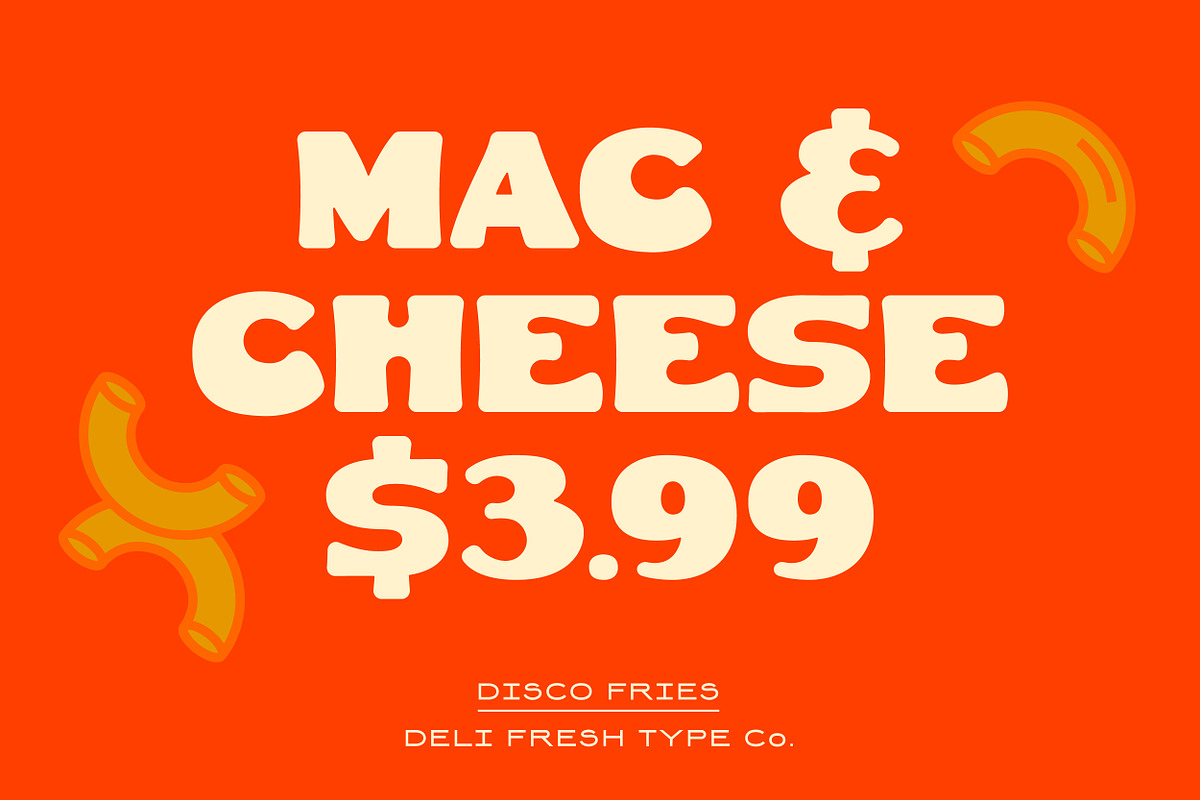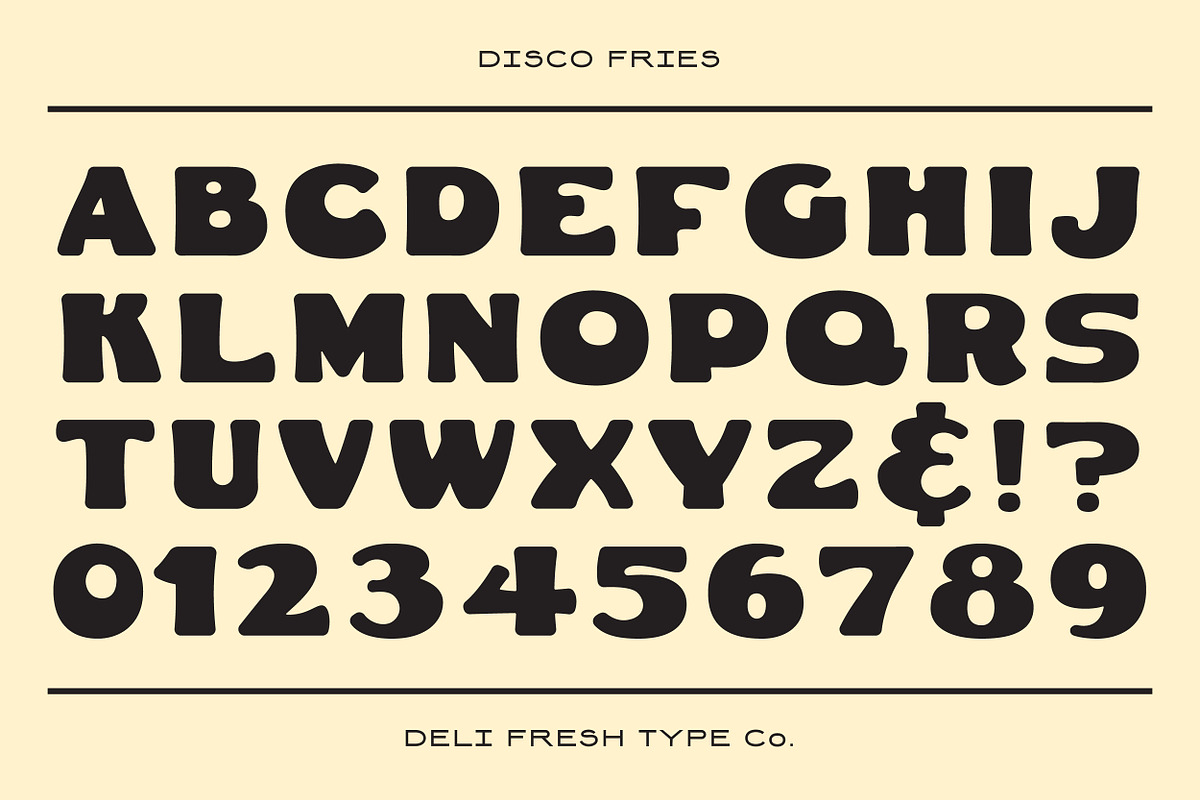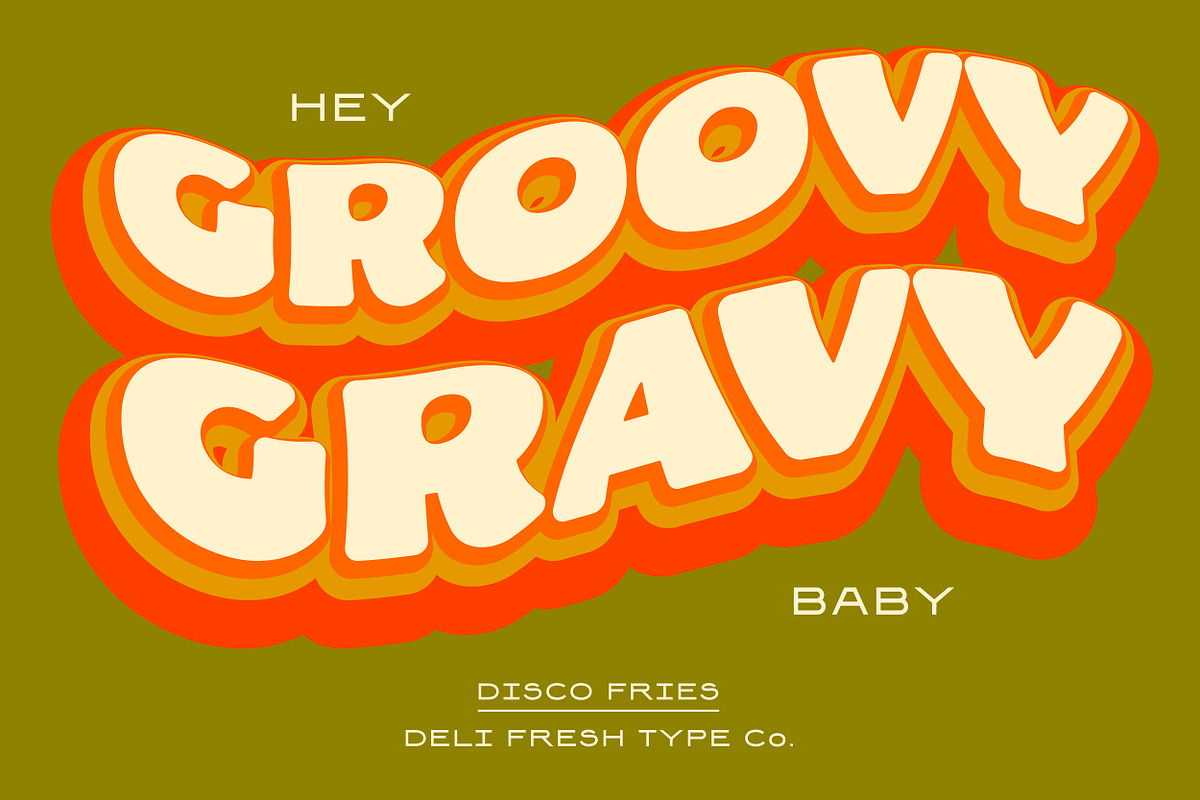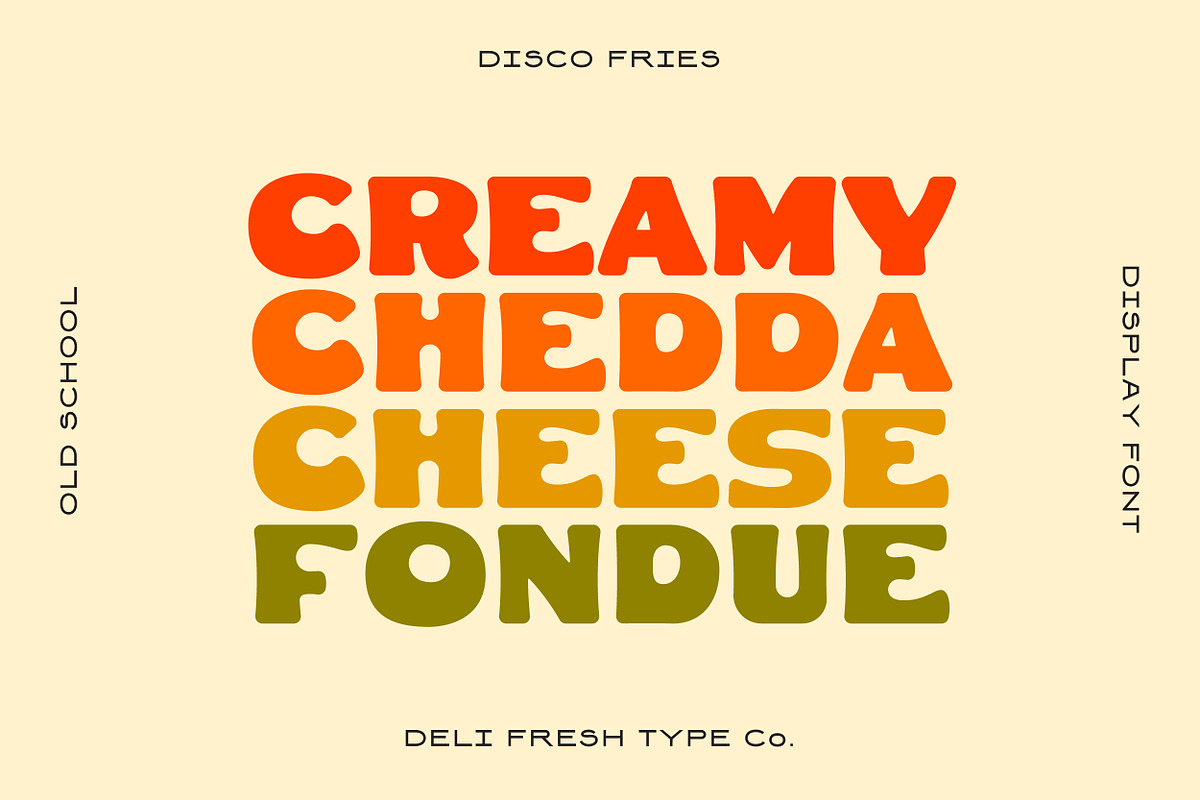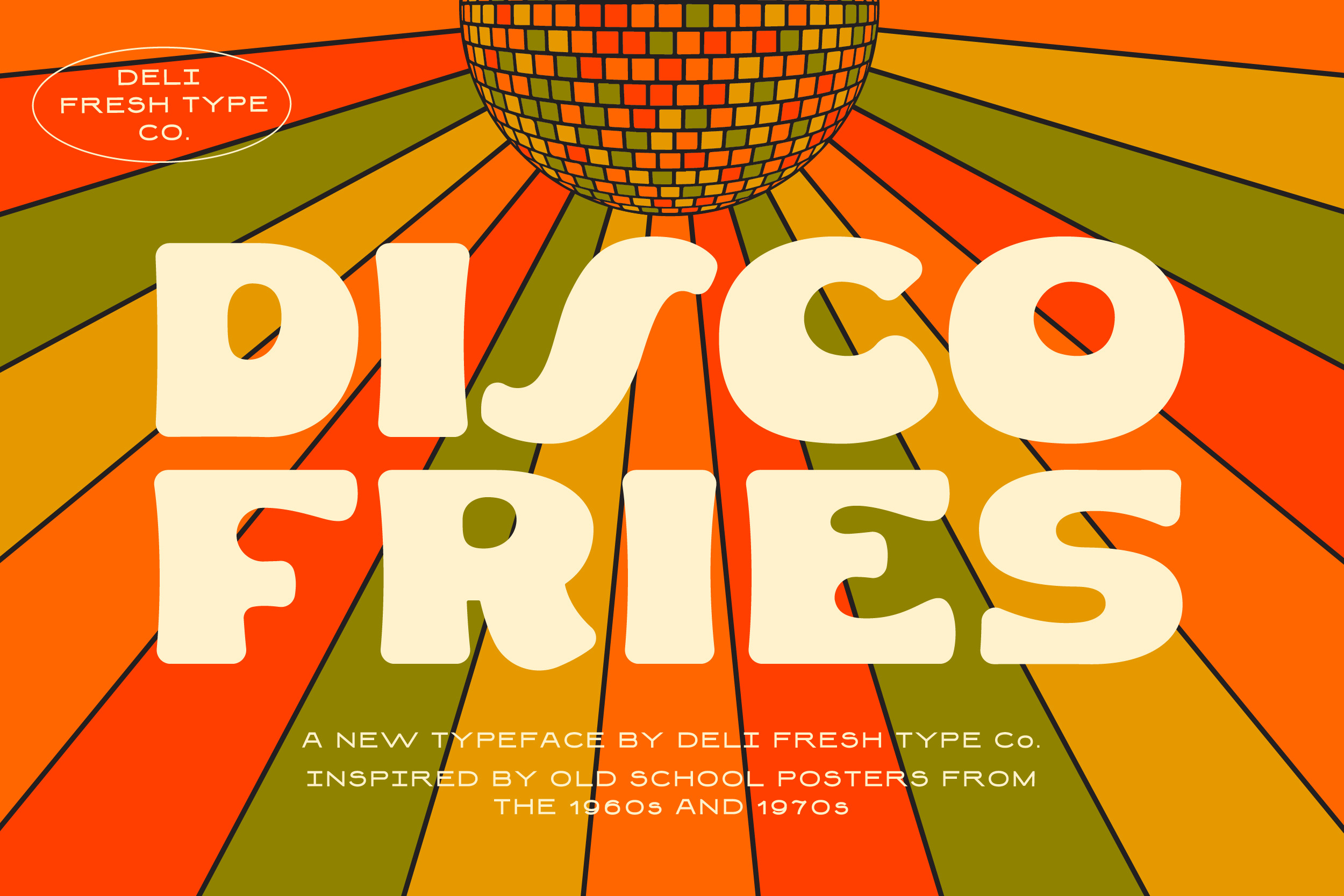
Disco Fries: A Retro Poster Font
A retro display typeface inspired by old school posters.
This hefty font comes with capitals, numerals, and a smattering of special characters.